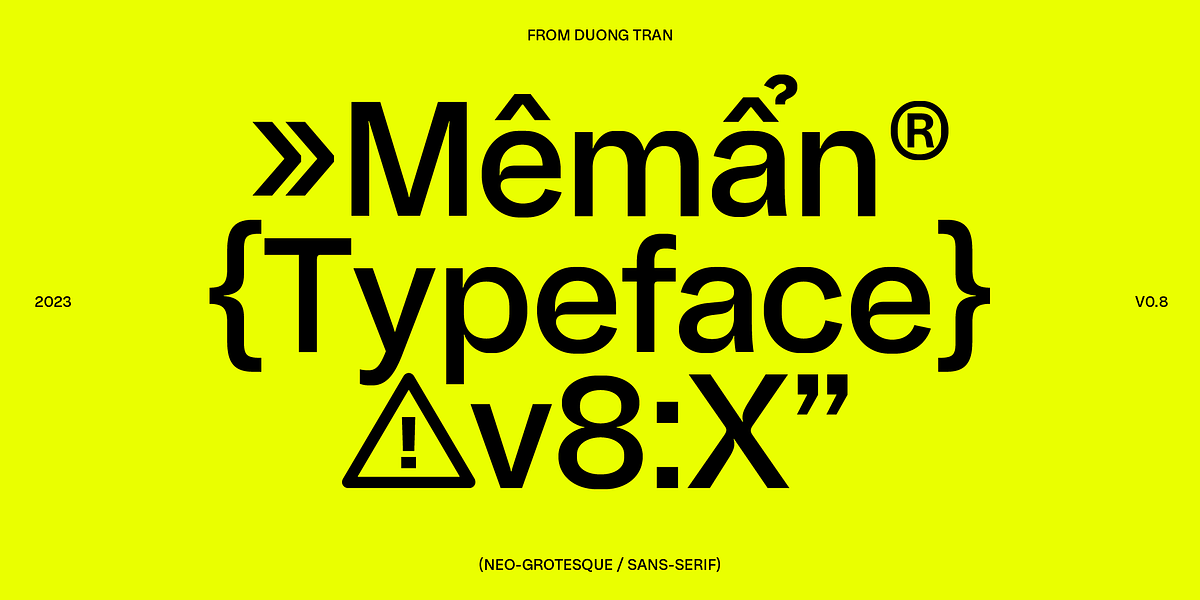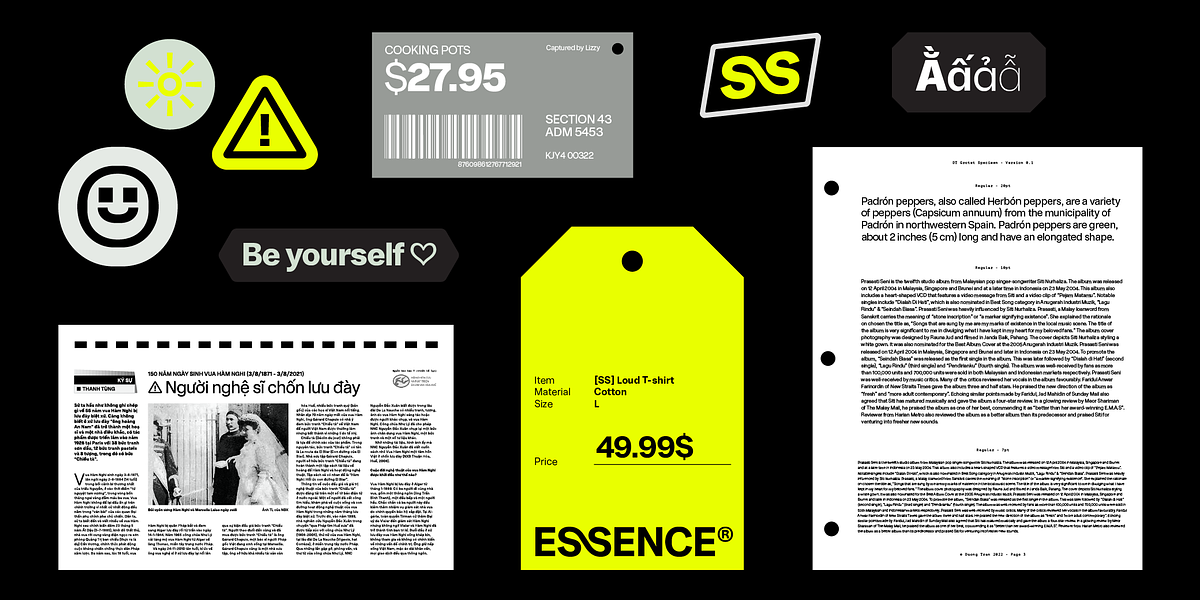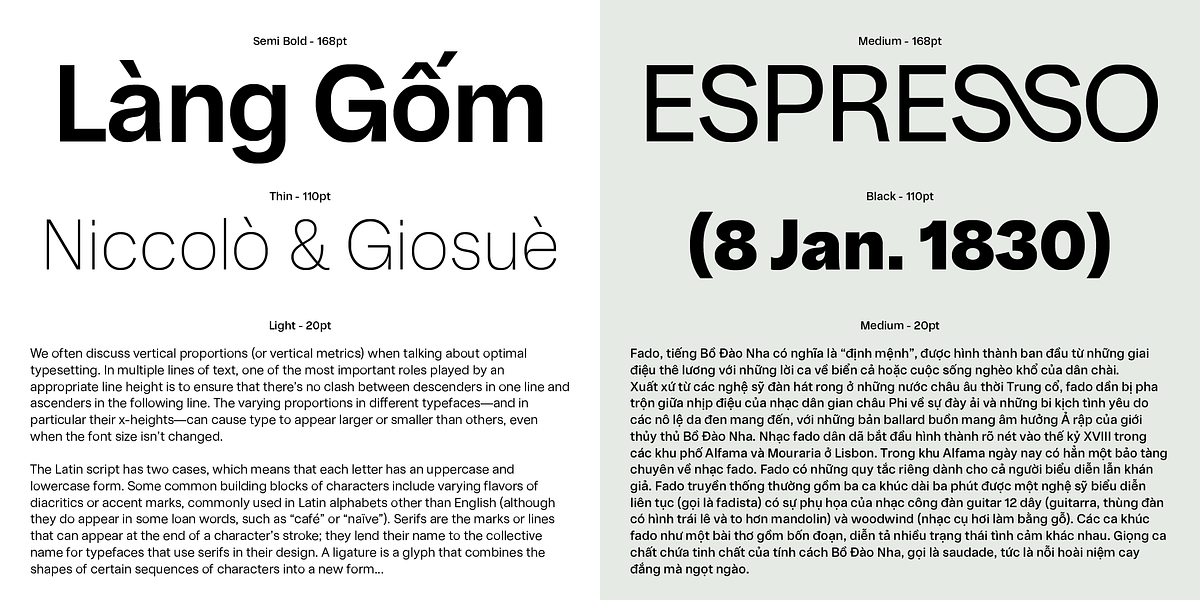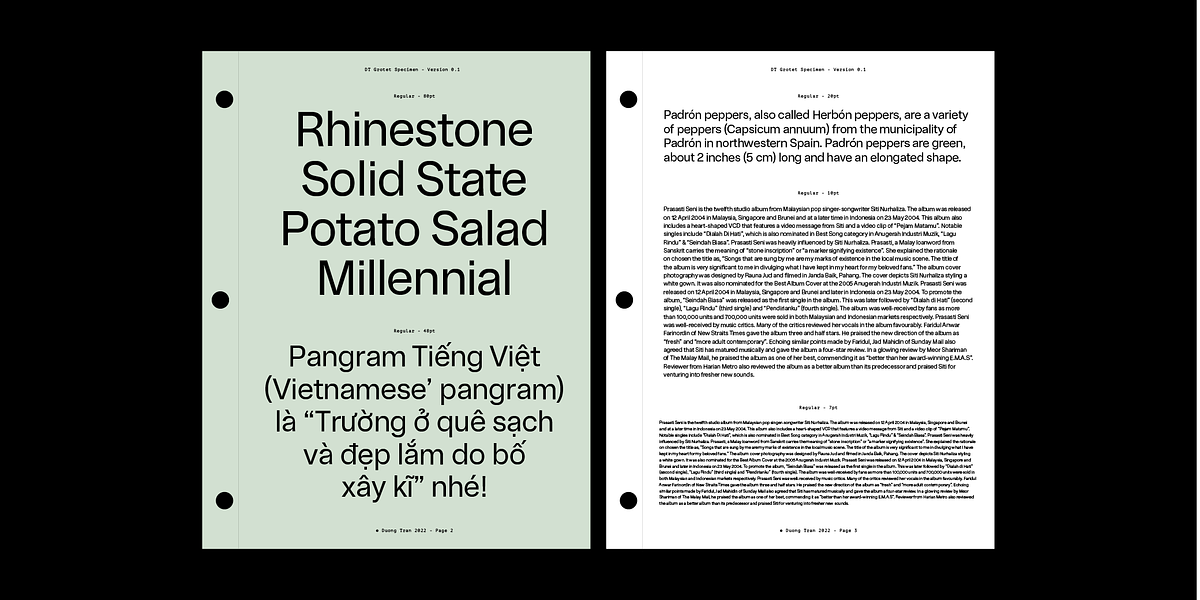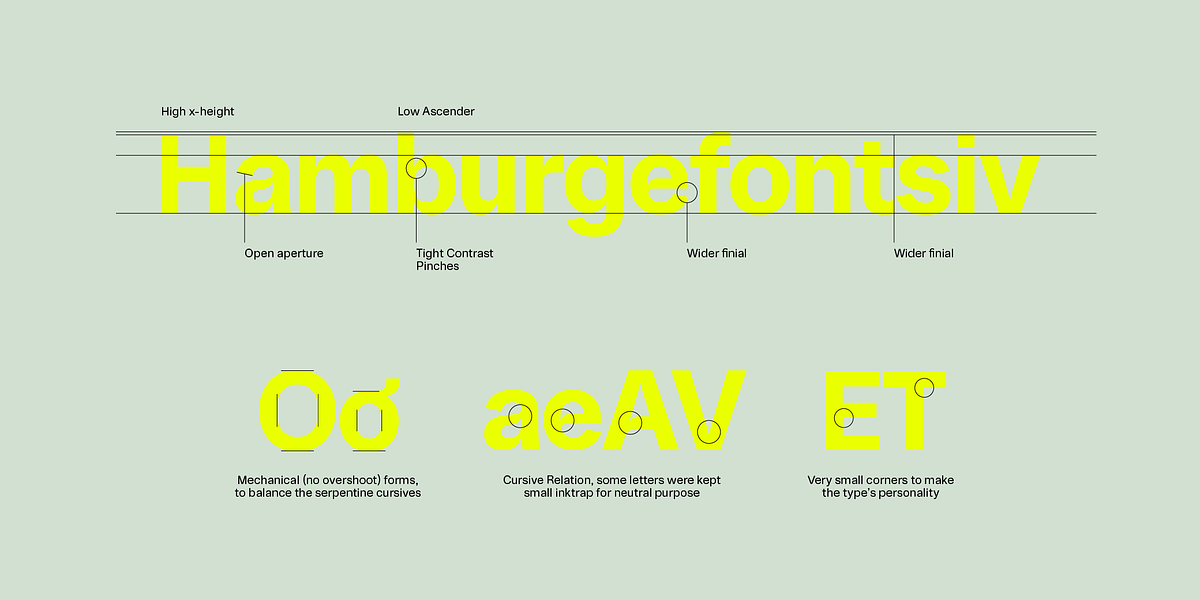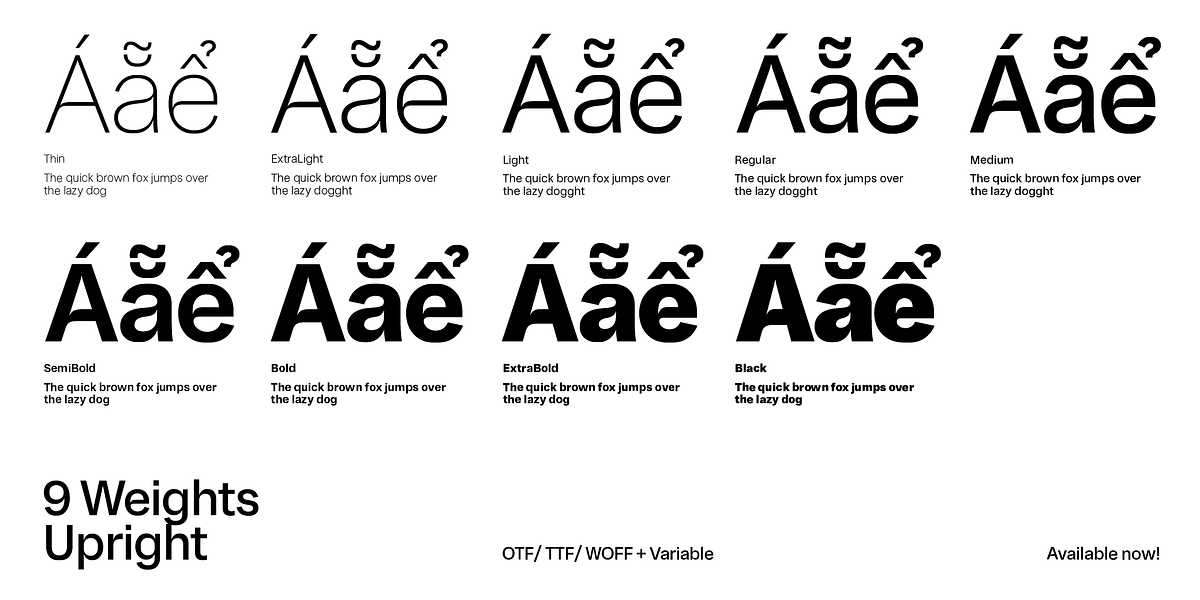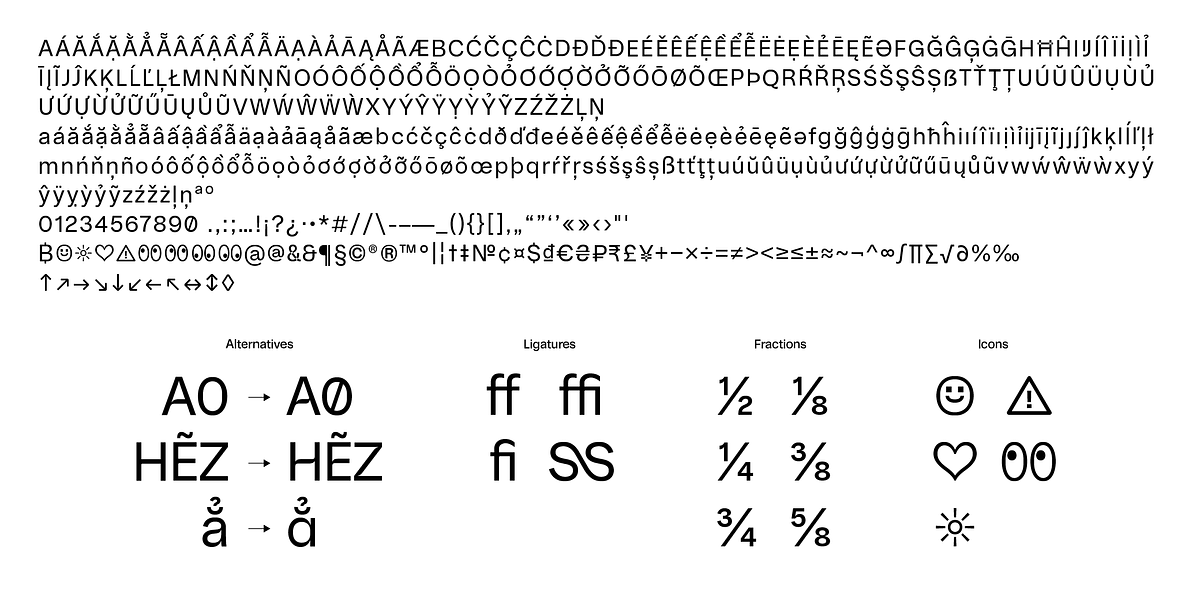
DT Meman
Meman is a sans serif typeface designed to balance practicality with subtle personality. It draws inspiration from geometric forms and incorporates serpentine curves and open terminals for visual interest. While neutral at smaller sizes, Meman reveals intricate details on larger scales. The font includes alternate characters for letters like A, E, V, and Z, as well as decorative icons. With 10 weights and support for a wide range of Latin languages, Meman is versatile enough for both headlines/logos and body text.